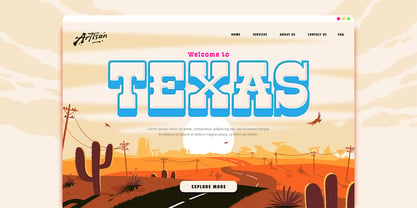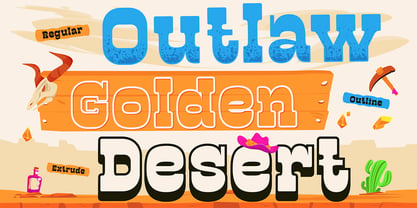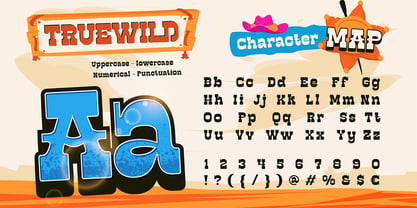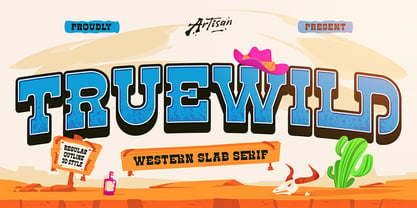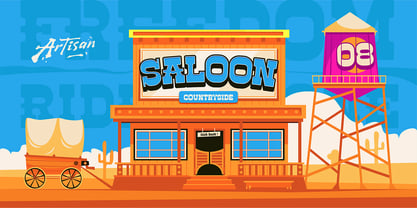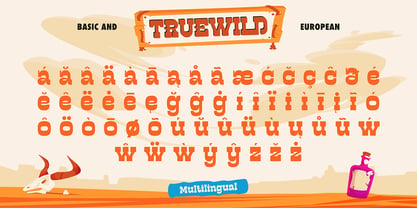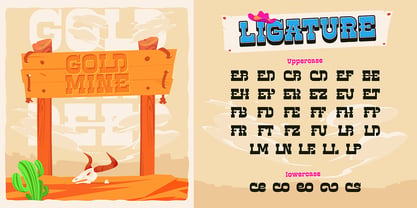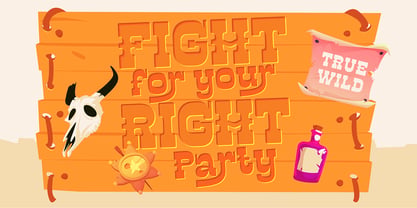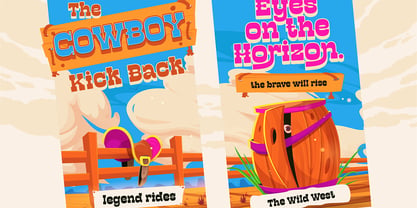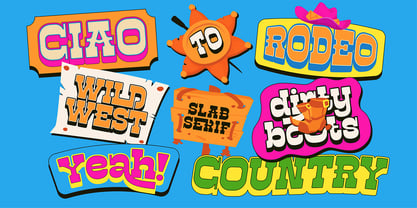
Truewild
The Truewild Font Family was designed by Meidy Meichico and published by Artisan Themes. Truewild contains 3 styles and family package options. More about this family
Time to go wild, cowboy!  Truewild is a bold Western-style slab serif that captures the spirit of the wild frontier — with a modern twist. Whether you’re designing for a cowboy movie poster, rodeo branding, or vintage product packaging, this font brings that adventurous Wild West vibe to life. Comes in Regular, Outline, and 3D styles, making it perfect for eye-catching headlines, retro signage, or playful vintage logos. Each letter feels like a mix of dust, denim, and daring — perfect for any project that needs a little grit and charm. Let Truewild take your design on a ride through the golden desert, where bold typography meets modern Western attitude! Features: A - Z set (Uppercase & Lowercase), Number, Alternates, Ligatures, Punctuation, Multilingual
Truewild